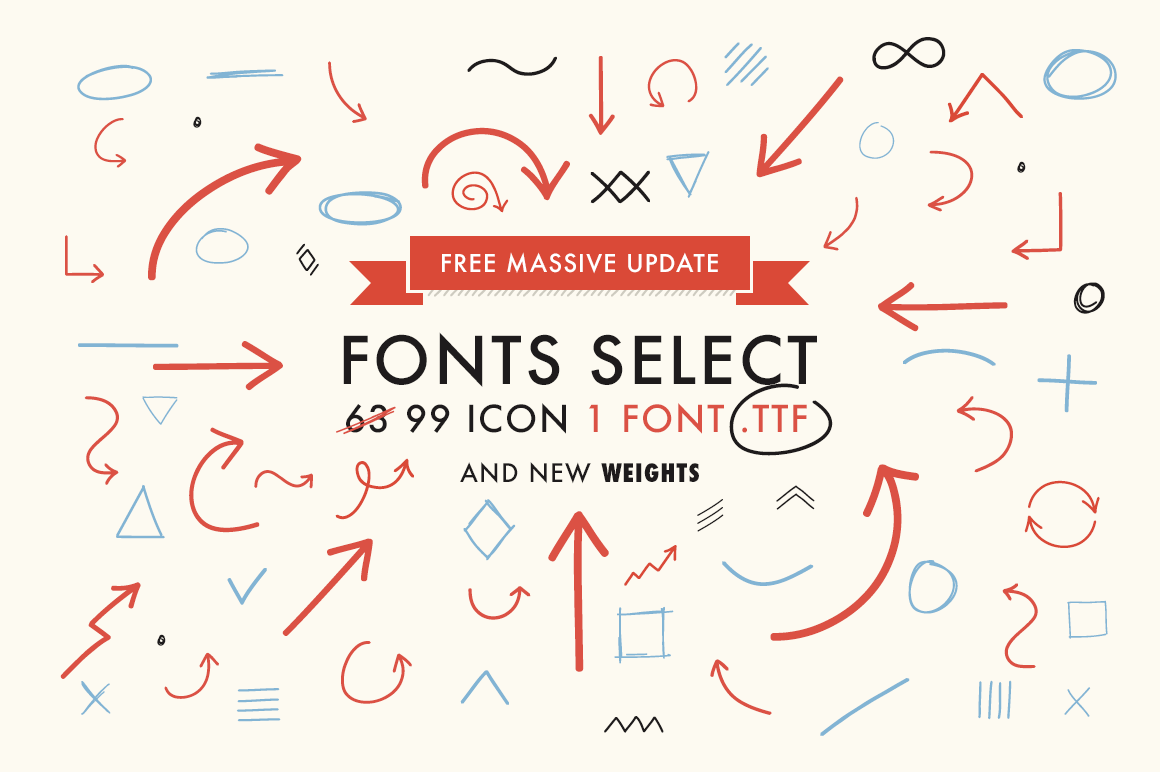
Font Select ICON - Massive update !
- Add fonts arrows and symbols from 63 to 99.
- Add a new weight.
Selectezy is a .ttf font with lot of arrows and symbols. Not quantity but quality. Let me talk about that font, on my day job I design (most of the time) website for client. I'm a photoshop freak and sometimes I need to add an arrow somewhere but make a simple curve line on photoshop means lot of clic and open illustrator lot of ressources for my laptop, so I make this very useful font. With that font you can add arrow or simple hand drawn select on your design. The integrator can add directly your icon on the webpage with the webfont. You also make cool "hand drawn style" patterns.